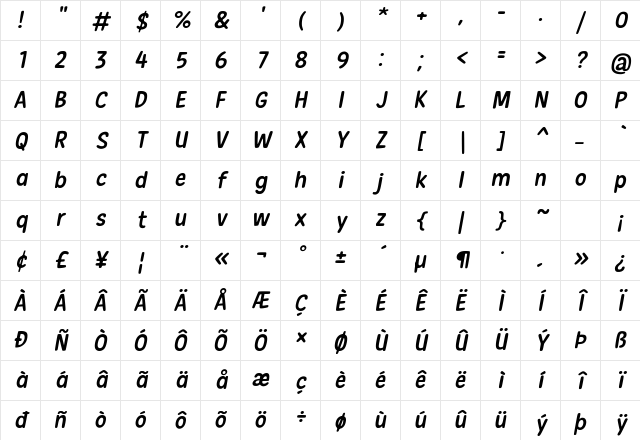
New Era Casual Italic Free Font
New Era Casual Italic
Design Context for New Era Casual
New Era Casual is a composed and adaptable typeface that performs quietly and consistently across a wide range of design contexts. The slanted form adds forward momentum and visual energy.